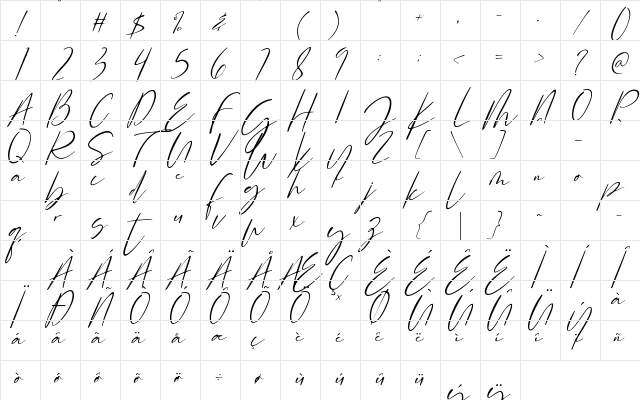
Rossie Regular
Foundry: BrandSemut
Designer: Ahmad Sidiq
Design Context for Rossie
Rossie is a composed and adaptable typeface that performs quietly and consistently across a wide range of design contexts.